The stadium lights are back on, and fans are finally back in their seats! Sports culture is alive again after being stuck behind screens for so long. Jerseys are more than just pixels again, and cheers aren’t muted. Now, fans, athletes, and creators want to create real stuff—like merch, banners, and signs—that shows their love for the game.
Good design is more than just colors and images. The right font is key. With so much sports gear out there, your font needs to stand out. It should be bold, easy to read from far away, and full of the spirit of competition. Here are some great sports and fitness fonts that work great for logos, posters, jerseys, and more.
Hey, if you’re looking for the perfect fonts for sports and fitness branding, you’ve come to the right place! This guide breaks down the best choices for logos, jerseys, posters, and more. We’re talking bold fonts, cool vintage styles, modern looks, and even some free options. Find fonts that stand out, are easy to read, and scream team spirit!
Top Sports Fonts for Logos
Sports logo fonts have to be tough. They need to look good over and over again, big or small, on fabric, screens, and signs, without losing their impact.
Houston Sports
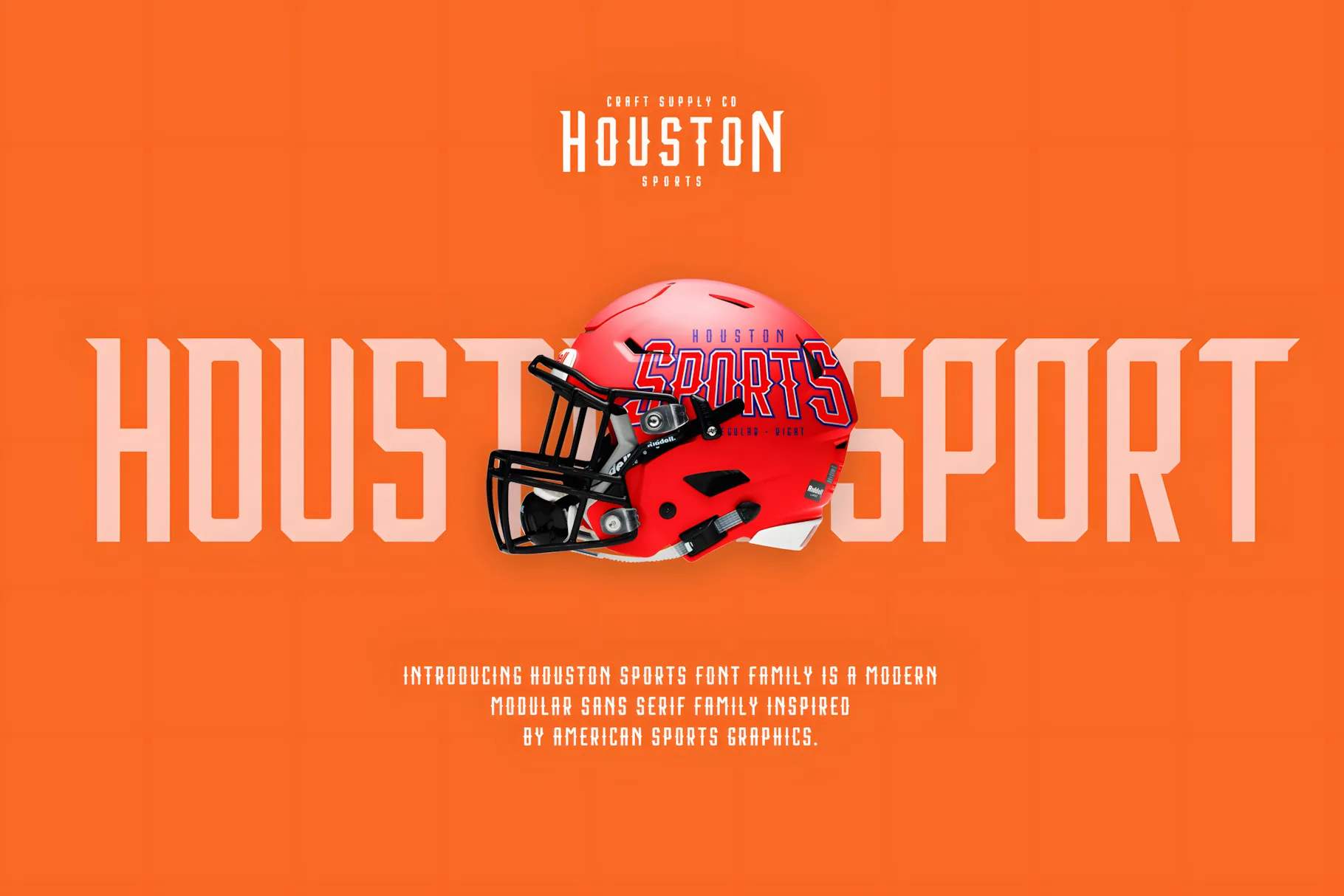
Houston Sports is compact, strong, and sporty. It has a modern look with a simple design. Its tight shape and strong feel make it perfect for team logos, game posters, and ads that need to look reliable and powerful.
Varsity Team
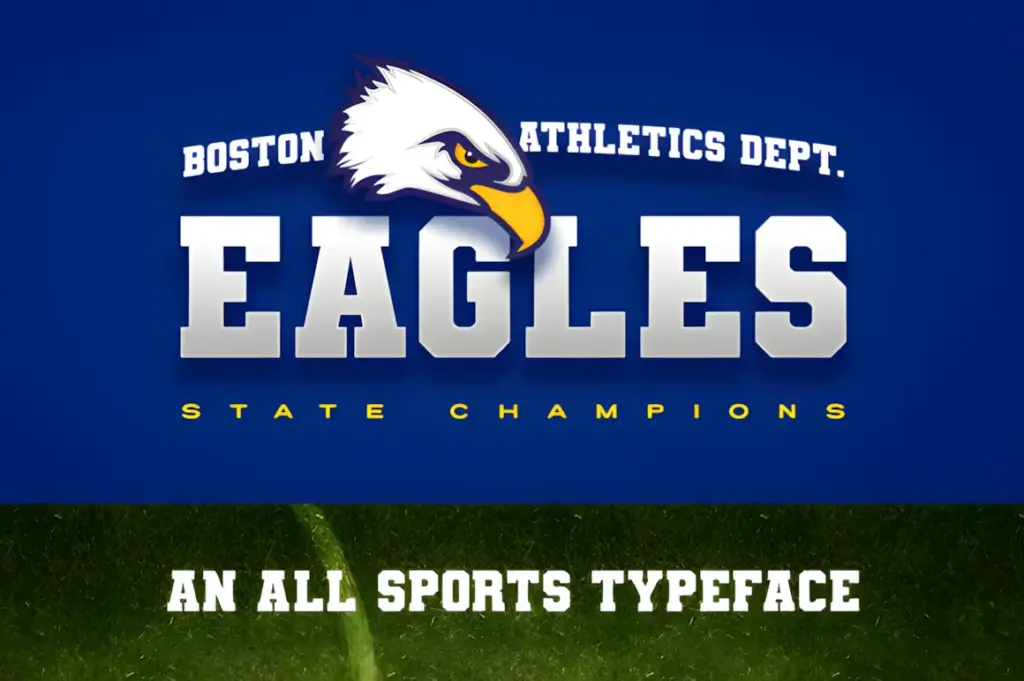
For a classic college look, Varsity Team is a great choice. Its straight lines, blocky serifs, and bold ends remind you of old-school college sports. It looks great on hats or big banners and shows off school spirit.
Heisman
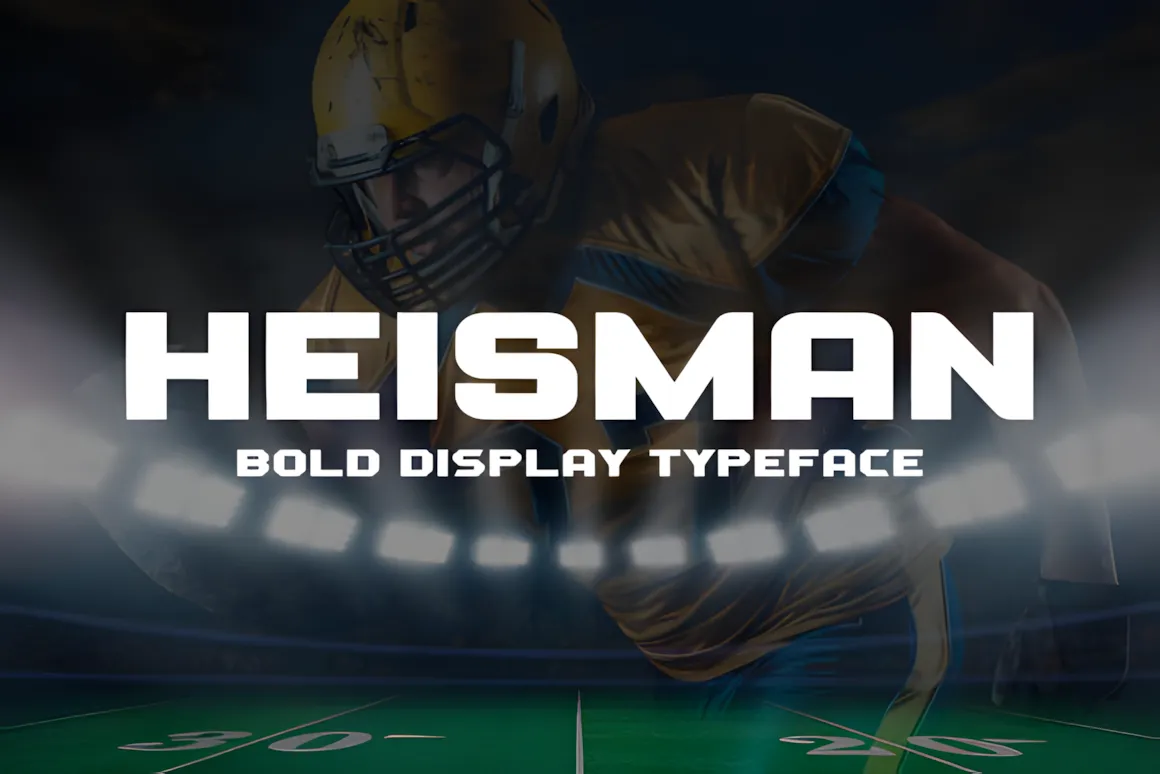
Heisman is all about precision. Its balanced design makes it look like the neat, clean fonts on pro jerseys. It works great for headlines, big screens, TV graphics, and branding. It stays clear and sharp no matter how big you make it.
Speed
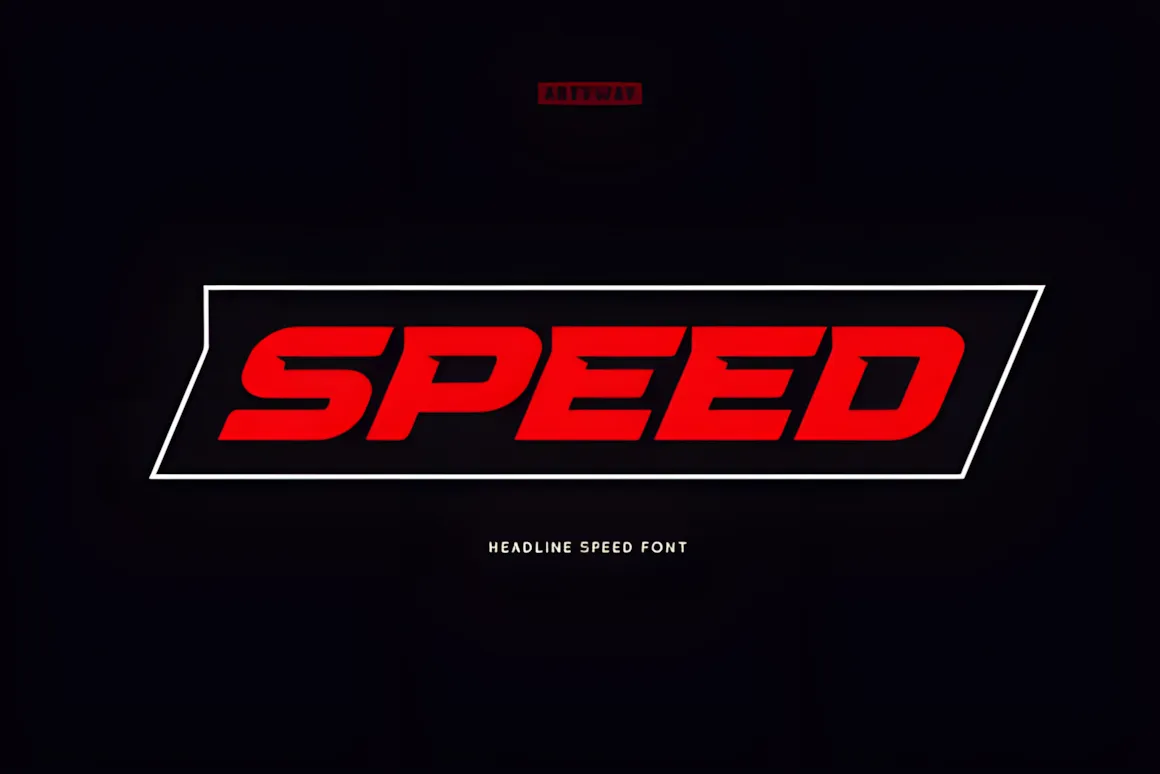
Speed is tilted and strong, like motion in a race. Inspired by racing, its sloping style makes it feel fast. It’s great for car posters, exciting headlines, and logos that never stop moving.
Gymer
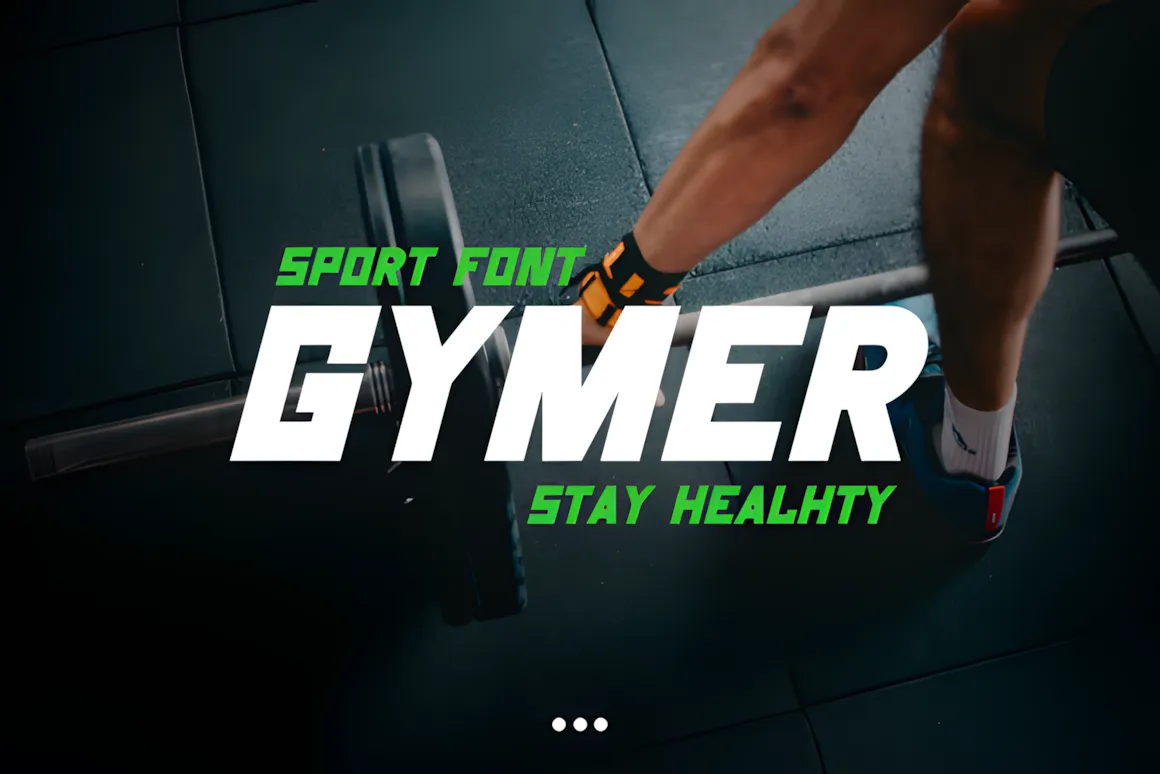
Gymer is rough, intense, and super masculine. Its sharp edges and blocky build make it easy to read from far away. It’s perfect for athletic wear brands, gym signs, and gear that needs to look tough.
Great Fonts for Sports Banners and Posters
Banners and posters need fonts that grab attention.
Touchdown
Touchdown has a classic feel. Its textured uppercase letters catch your eye, while its clean lowercase letters keep things clear. It’s a dependable font for jerseys, sports branding, and signs that are both classic and confident.
Blockhead Nova
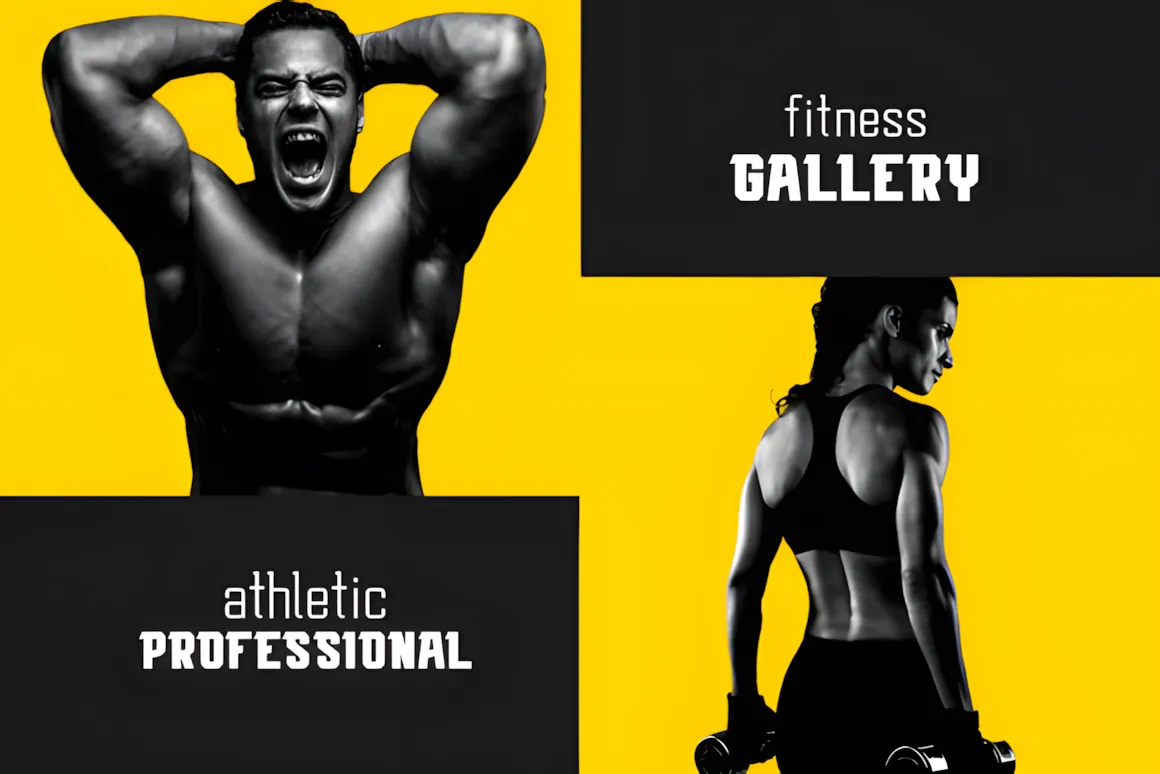
Blockhead Nova is retro and bold, with thick lines and cool serifs. Its style is like old movie fonts, which makes it stand out on game covers, branding stuff, and marketing materials.
Broaven
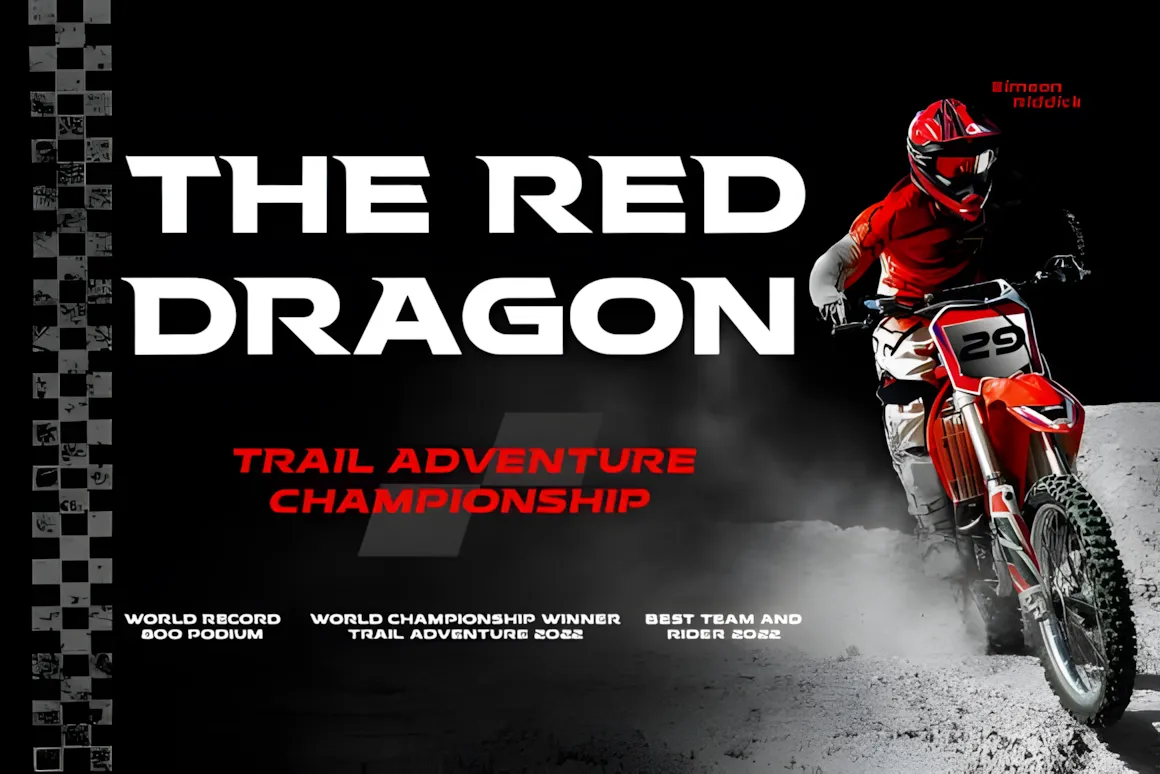
Broaven is aggressive and leans forward, like it’s running. Its tilted shape and strong form work well for racing, sports bars, gym signs, and anything that’s about speed and excitement.
Maverick
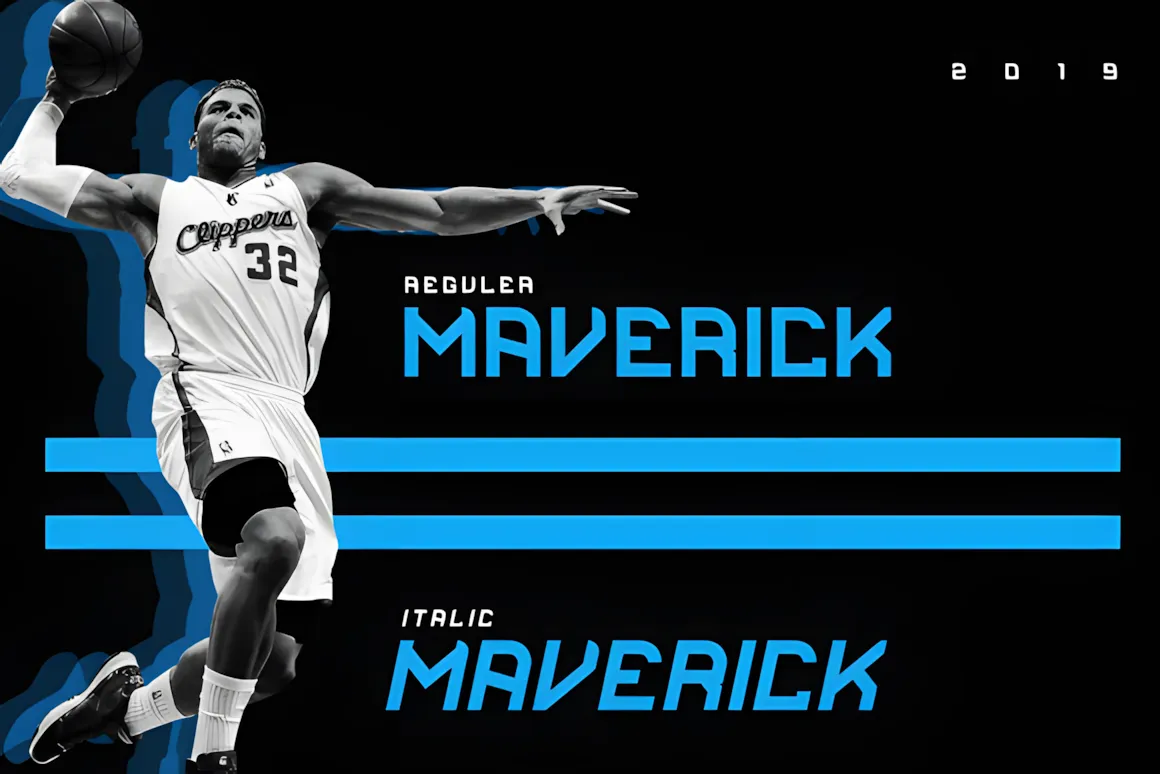
Maverick is often used in basketball but works for any sport. This bold font is clear and easy to read, so it looks great on jerseys, stickers, and even non-sports projects.
Cool Vintage Sports Fonts
Vintage sports fonts remind you of history—the sound of old crowds, leather helmets, and old highlight videos. They have a nostalgic feel without being outdated.
Redwing
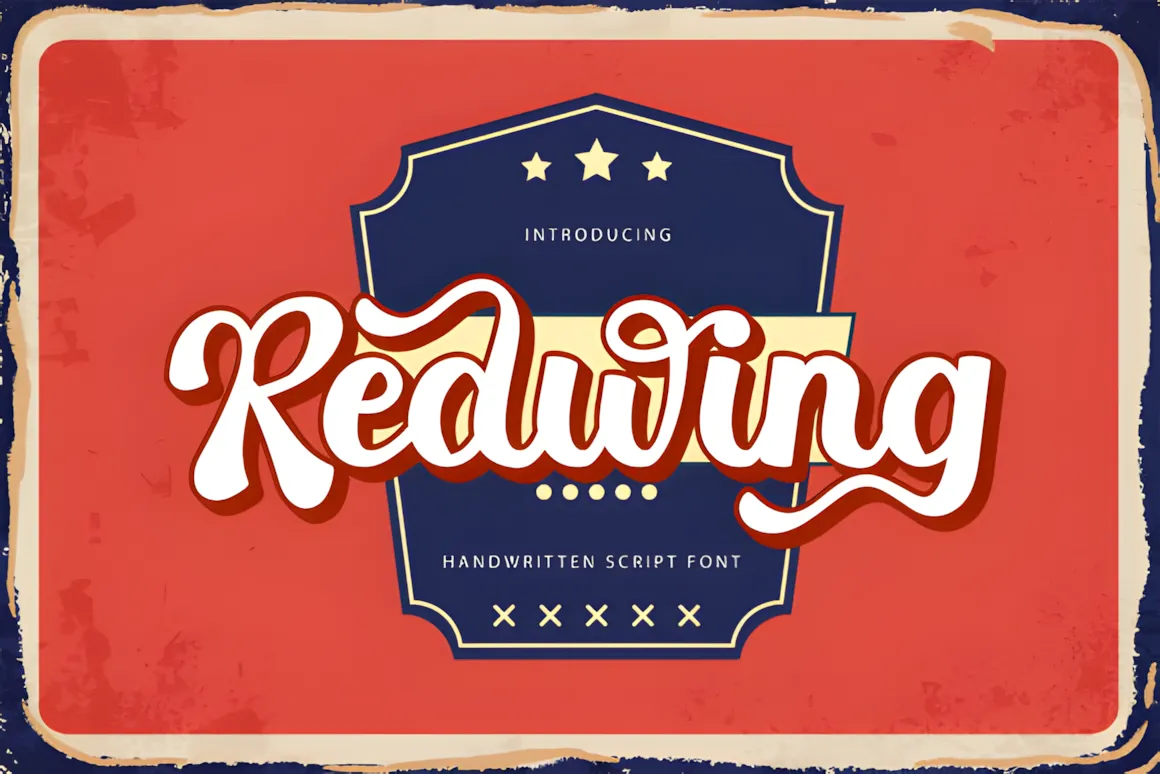
Redwing is a flowing, retro font with long, dramatic lines. It’s full of personality, making it great for vintage posters, promo videos, stickers, and team branding.
Devgon
Devgon has texture and looks like metal. It’s fun but strong and works well on clothes, mugs, hats, and stickers. It adds a friendly feel to anything it touches.
Courage Union
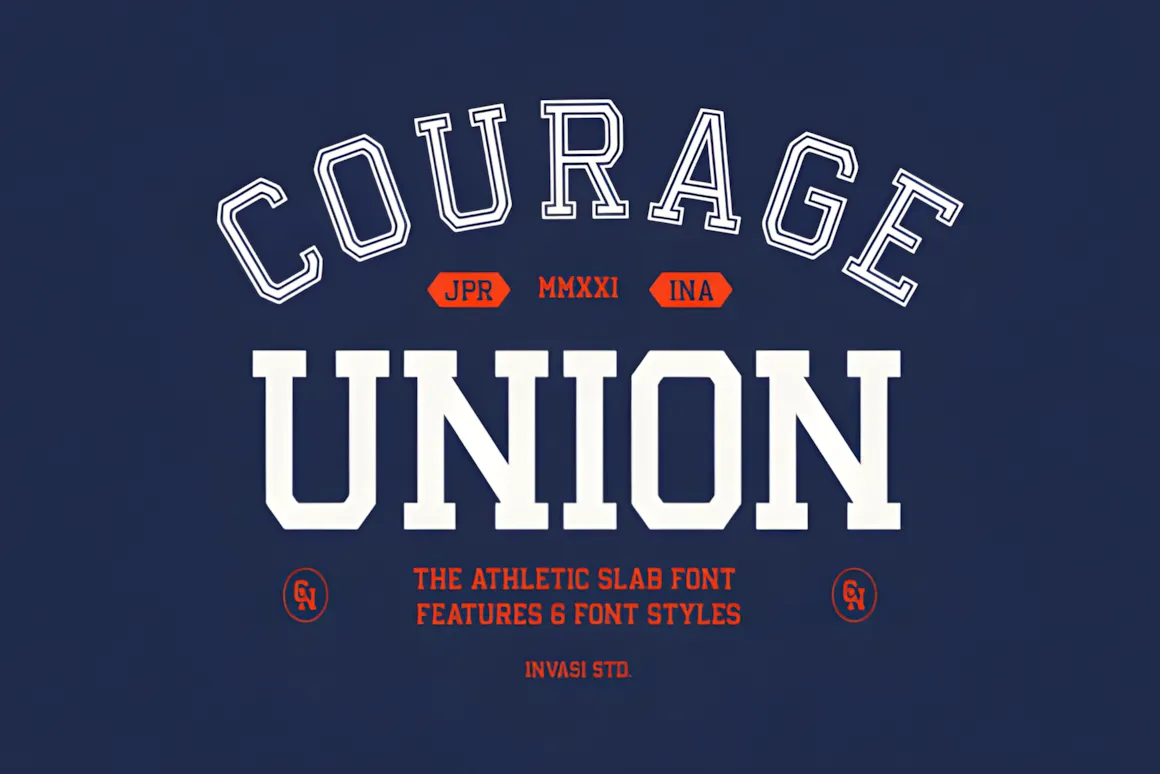
Courage Union is inspired by traditional university fonts. It’s strong but familiar and is great for football banners, school signs, hoodies, and sports gear that honors the past.
Vintage College Dept Pure
Vintage College Dept Pure is the classic varsity font. It looks like letterman jackets and yearbooks. It’s clean, simple, and nostalgic, perfect for retro jerseys, alumni gear, and designs that celebrate history.
What’s a sports font?
A sports font shows competition, unity, and athletic identity. Any font can be a sports font when used right!
What sports fonts are popular?
Fonts named Sport are always a hit. Baseball-style fonts are also popular because they’re flexible and classic.
Where are sporty fonts used?
They’re used in sports branding: jerseys, logos, banners, marketing, and merch.